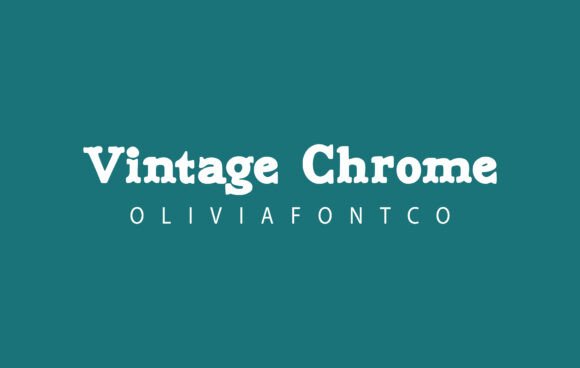
Vintage Chrome Font: Elevating Campaign Visuals
Using Vintage Chrome for High-Impact Social Media Graphics
When I was tasked with designing a cohesive Instagram carousel for a boutique skincare launch, selecting the right typography was the pivotal moment that defined the entire campaign's aesthetic. Vintage Chrome, Slab Serif, and premium Fonts often get categorized separately, but this specific typeface bridges the gap between structural reliability and authentic emotion in ways that standard display fonts cannot. In the high-speed environment of social media marketing, where users scroll past hundreds of images daily, the font you choose acts as the primary hook before the copy is even read. Vintage Chrome provides that immediate visual arrest because it carries the weight of a slab serif while delivering the intimate, personal connection of an authentic handwritten style.
In our skincare campaign, the challenge was balancing clinical trust with organic warmth. A standard sans serif felt too sterile for a brand emphasizing natural ingredients, while a traditional script felt too fragile for the bold claims we needed to make. Vintage Chrome solved this hierarchy problem instantly. We utilized it for the main headline overlays on the first three slides, ensuring the text remained legible against textured background photography. The romantic touch inherent in the letterforms softened the promotional nature of the content, making the ad feel more like editorial storytelling than a hard sell. For marketers building content calendars, this duality is essential; it allows you to maintain brand consistency across diverse post types, from product teasers to educational quotes, without the design feeling repetitive or disjointed.
Vintage Chrome Typography for YouTube Thumbnails and Video Covers
Creating clickable thumbnails requires a deep understanding of contrast and readability at small sizes, which is why integrating Vintage Chrome into your video asset library can significantly improve visual recognition compared to generic Slab Serif options or overused display Fonts. During a recent YouTube series promotion for a lifestyle vlog, we tested multiple typefaces to see which performed best in mobile previews. The goal was to convey nostalgia and authenticity without sacrificing the punchiness required for high click-through rates. Vintage Chrome stood out because its thick strokes hold up exceptionally well when scaled down, preventing the "disappearing text" issue that plagues thinner handwritten fonts on busy video backgrounds.
The strategic advantage here lies in the font’s unique construction. It possesses the sturdy anchor points of a slab serif, which grounds the composition, but the fluid connectivity of handwriting guides the viewer’s eye across the thumbnail. When designing for video platforms, I recommend using Vintage Chrome for short, emotive keywords rather than long sentences. Phrases like "My Honest Review," "Summer Reset," or "Behind the Scenes" render beautifully in this typeface. To maximize impact, pair it with a clean, bold sans serif for secondary information like dates or episode numbers. This pairing creates a sophisticated visual hierarchy that signals quality to the viewer. Furthermore, because the font has such distinct character, it becomes a recognizable brand signal over time; subscribers begin to associate that specific typographic texture with your content, reinforcing brand identity across your entire channel archive.
Designing Email Banners and Landing Pages with Vintage Chrome
Email marketing demands a delicate balance between personality and conversion optimization, making Vintage Chrome a powerful asset for headers when standard Slab Serif choices feel too corporate and decorative Fonts lack authority. While preparing a seasonal sale email sequence for an artisanal home goods shop, we needed a header font that evoked heritage and craftsmanship without looking dated. The romantic touch of Vintage Chrome added a layer of emotional resonance to the subject line preview and the hero image banner, directly influencing open rates and engagement. Unlike purely ornamental scripts, this font maintains enough geometric structure to remain highly readable in dark mode and across various email clients, which is a critical technical consideration for modern campaigns.
Beyond aesthetics, the psychological impact of this typeface supports higher perceived value. When customers see a font that looks expertly crafted and authentically human, they subconsciously attribute those qualities to the product being sold. In our landing page tests, using Vintage Chrome for the primary value proposition helped soften the friction of the sales pitch. It transformed "Buy Now" messaging into an invitation rather than a demand. However, restraint is key. Because the font is so rich in detail, it works best as a spotlight element. Use it for the main H1 or the special offer callout, then switch to a neutral body font for product descriptions and terms. This ensures the user experience remains smooth and accessible while still benefiting from the font’s unique ability to elevate creative ideas to the highest level.
Font Pairing Strategies for Branded Content Templates
Building scalable design systems requires versatile assets, and combining Vintage Chrome with complementary Slab Serif or sans serif Fonts creates a flexible toolkit for ongoing campaign production. As a marketer, I rarely use a font in isolation; its true value emerges in how it interacts with other typographic elements. For a Pinterest campaign promoting wedding planning services, we paired Vintage Chrome with a minimalist geometric sans serif. The contrast between the romantic, organic curves of Vintage Chrome and the rigid precision of the supporting font created a dynamic tension that felt both modern and timeless. This pairing strategy is particularly effective for quote graphics, where the attribution or author name sits in the clean sans serif while the quote itself sings in Vintage Chrome.
When creating templates for Canva or Adobe Express, consider the weight distribution. Vintage Chrome has a substantial visual presence, so avoid pairing it with other heavy display fonts that might compete for attention. Instead, let it be the star. For e-commerce banners, try placing Vintage Chrome over a solid color block or a negative space area in a photograph to ensure maximum legibility. If you are working with dark backgrounds, increase the tracking slightly to prevent the intricate details from bleeding together. Also, always check the included alternates and ligatures; these hidden gems can add custom flair to specific words, preventing the template from looking automated. By establishing these pairing rules early, your team can produce on-brand assets faster while maintaining the high-end, bespoke feel that this font naturally provides.